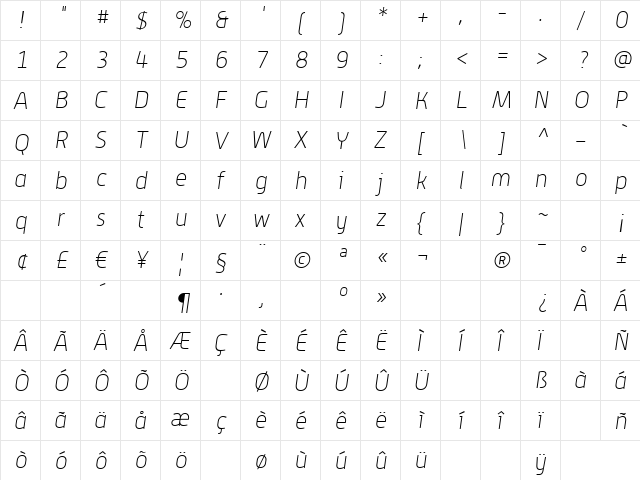
Alwyn ThinOblique Font Preview
Alwyn ThinOblique
Alwyn ThinOblique Font Details
| Style | ThinOblique |
Design Context for Alwyn Typeface
Alwyn takes a measured approach to typography — its balanced proportions and neutral character make it a reliable workhorse for both digital and print work. The dynamic lean of this cut emphasises speed and emphasis in any layout. Its slender proportions lend an understated elegance to any composition.